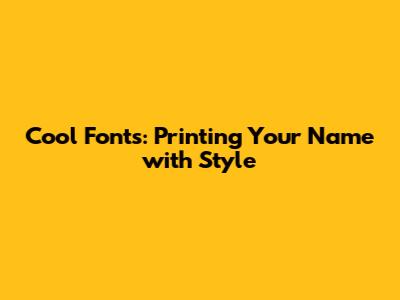
Cool Fonts: Printing Your Name With Style
Hey guys! Ever wanted to see your name looking super cool and unique? Maybe you're working on a project, designing a birthday card, or just feeling creative. Whatever the reason, learning how to print your name in different fonts is a fun skill to have. It's a fantastic way to add a personal touch to anything you create, and it's surprisingly easy to get started. From fancy cursive scripts to bold, modern block letters, the possibilities are endless! In this article, we'll dive into the world of fonts and show you how to spice up your name in a bunch of awesome ways. Get ready to explore a whole spectrum of styles, from the elegant to the edgy. We'll cover everything from using online font generators to the basics of font selection, giving you the tools to express yourself creatively. Let's get started and turn your name into a work of art!
Choosing the Right Font: Your Style Guide
Alright, before we jump into the technical stuff, let's talk about the fun part: choosing the right font. Think of fonts like clothing for your words. Each one has a different personality and can change the whole vibe of your name. First, consider the message you want to convey. Are you aiming for elegance, playfulness, or professionalism? A sleek sans-serif font like Helvetica might be perfect for a modern, clean look, while a flowing script font like Scriptina would be ideal for something more romantic or artistic. Then, check out the various font families. There are four main categories: serif, sans-serif, script, and display fonts. Serif fonts have little strokes, called serifs, at the ends of the letters (think Times New Roman or Georgia), giving them a classic and traditional feel. Sans-serif fonts lack those serifs, resulting in a cleaner, more contemporary look (like Arial or Open Sans). Script fonts mimic handwriting and can range from formal to casual. Finally, display fonts are designed for headlines and creative purposes, often being more decorative and unique. Experiment with various fonts, type your name in each one, and see which one feels right. Don't be afraid to mix and match styles to make it truly your own. Always consider readability, especially if you're using your name in a design that needs to be easily read. Don't go with something that's too elaborate. The goal is to make it look cool but also easy to read. Think about the overall feel you're going for. Is it a fun, bold statement, or something more understated and sophisticated? With so many choices, you're bound to find a font that perfectly suits your style and personality.
Font Pairing and Combination
Once you have a general idea, consider font pairing. Think of it like putting together an outfit. Just like some colors and patterns complement each other, some fonts work well together, creating a harmonious and visually appealing effect. Start by choosing a primary font for your name. This should be the main font, and it sets the tone for your design. Next, select a secondary font to add contrast and interest. Here are some great examples: Pair a bold, modern sans-serif with a more delicate serif. This adds visual interest without clashing. Use a script font for your name and a clean sans-serif for any additional text. This can create a beautiful contrast. Experiment with different weights and sizes of the same font family. This can create a cohesive look while adding emphasis. The key is to find fonts that complement each other. Avoid pairing two fonts that are too similar, as this can create a dull and uninteresting design. Also, don't use too many fonts, as it can make your design look cluttered and unprofessional. Keep it simple and focused, and let your fonts work together to create a striking and memorable visual impact.
The psychology of Fonts
Fonts do a lot more than just display letters; they also communicate emotions and set the tone. Understanding the psychology of fonts can help you choose the perfect one for your name. Serif fonts are generally seen as reliable and traditional, which is why they are often used in newspapers and books. This is an excellent choice if you're aiming for a classic or authoritative look. Sans-serif fonts are associated with modernity and simplicity. They are clean and easy to read, making them a great choice for a contemporary or minimalist design. Script fonts evoke elegance, creativity, and personalization. They can be perfect for conveying romance, artistry, or a sense of individuality. Display fonts are bold and eye-catching. They are best for making a statement or grabbing attention. Consider your target audience. Who are you trying to reach? A playful font might be perfect for a kid-friendly design, while a more professional font would be better for a business card. Think about the message you want to communicate. Does it want to be fun, serious, or elegant? Different fonts will help you express a feeling with your name.
Tools and Techniques: Make it Happen
Okay, guys, now for the fun part: how to actually print your name in different fonts! There are several easy and creative ways to do this, whether you're using a computer, a mobile device, or even just a pen and paper. We'll explore various techniques to bring your vision to life. Let's start with some of the easiest methods: online font generators. These are quick, free, and incredibly user-friendly. Just type your name, choose a font, and download or copy your creation. They're perfect for a quick design or if you're just experimenting. Next, consider using design software. Programs like Canva, Adobe Photoshop, or GIMP offer more advanced font customization options, allowing you to tweak the size, color, and spacing. These tools can elevate your designs. For a more hands-on approach, you can also explore handwriting. Practice different lettering styles and create your unique font. This adds a personal touch and makes it truly original. Lastly, if you are planning to make something more traditional, use traditional tools. Combine these tools with your creativity to make your name look more beautiful. You can also print your name and use it in several projects, such as: creating cool stickers, making custom t-shirts, designing social media graphics, and personalizing gifts, among many other things.
Online Font Generators
Online font generators are a lifesaver when you want to create beautiful font-based art in a flash. There are tons of fantastic, free tools available that are super easy to use. Just type your name into the generator, and you'll immediately see it displayed in a variety of fonts. You can typically customize things like the size, color, and background. Here are some of the best online font generators: Font Generator: This tool provides a simple and easy way to generate text in a variety of fonts. Cool Fancy Text Generator: This website offers a huge selection of fancy and stylish fonts. LingoJam: Offers a text generator with many cool text fonts that include symbols and emojis. These generators are incredibly useful if you need a quick design or if you're experimenting with different fonts. They're perfect for social media posts, greeting cards, and other creative projects.
Design Software: Level Up Your Creativity
If you want more control and customization options, design software is the way to go. Programs like Canva, Adobe Photoshop, and GIMP offer advanced features to create amazing typography. With design software, you can adjust the font size, color, spacing, and even add effects like shadows and outlines. This level of customization allows you to create truly unique and eye-catching designs. Canva is an excellent choice for beginners because of its user-friendly interface and extensive library of templates and fonts. Adobe Photoshop and GIMP are more advanced tools. If you are going to use it, you will get much more control and features, but there is also a steeper learning curve. Design software is perfect for creating professional-looking graphics, such as logos, posters, and social media posts. With a little practice, you can use these tools to create your custom fonts and elevate your designs.
Hands-on Techniques: Get Creative
If you're more of a hands-on person, embrace the art of hand lettering. This is a great way to create your unique fonts and add a personal touch to your designs. Start by practicing different lettering styles. Experiment with various letterforms and techniques. Consider using a brush pen, marker, or pencil to create the effect you want. Once you're comfortable with the basics, try creating your font. Take the time to create your alphabet. Then, practice writing your name in your font. You can also add embellishments and details to make it your own. Hand lettering is a wonderful way to express your creativity. It is great for creating unique cards, designing personalized gifts, and making impressive art projects.
Making It Your Own: Adding Personal Touches
Alright, you've got your name in a cool font, but how do you make it truly yours? Here's how to add those personal touches that make your name stand out. Firstly, change up the color and texture. Experiment with different colors to create various effects, from bold and vibrant to soft and sophisticated. Incorporate textures like gradients, patterns, or even a distressed look to add depth and visual interest. Next, consider adding decorative elements. This can include anything from simple flourishes and borders to more elaborate illustrations and graphics. Think about your style and personality, and choose elements that reflect that. Don't be afraid to experiment with different design elements. The goal is to create something unique and special. Remember, your name is your brand, and it is a reflection of your personality and style. Make it stand out! Play with effects and adjustments like shadows, outlines, or 3D effects. This can make your name pop off the page and grab attention. Adding your name to all of your favorite stuff is a great idea to make it your own. Whether it's on t-shirts, mugs, or posters, you'll be expressing yourself!
Font Styles and Themes
When creating a design with your name, think about the theme or style you're going for. This can help you choose the right font and design elements. For example, if you're creating a design for a children's project, you might choose a playful font and bright colors. If you're designing something for a formal event, you might opt for an elegant script font and a sophisticated color palette. Consider the overall mood or message you want to convey and choose a font and style that aligns with that. Some popular design themes include: classic, modern, retro, and minimalist. Think about combining different elements. The key is to be creative and have fun. Your name is a great way to showcase your personality.
Conclusion: Embrace Your Name with Style
Alright, guys, you've reached the end of the journey! You now have the knowledge and tools to print your name in different fonts and express yourself creatively. Remember, the world of fonts is vast and varied, so don't be afraid to experiment and have fun! Whether you're using online generators, design software, or hand-lettering techniques, the possibilities are endless. Use the tips and tricks we've covered to create personalized designs that reflect your style and personality. As a reminder, here's what you've learned. You should start by choosing a font that represents your idea. You have to consider the psychology of fonts, which affects the result. You also need to know the tools and techniques. And finally, create a personalized design. The journey doesn't end here! Continue to explore new fonts, techniques, and design elements to grow and evolve. Your name is a powerful tool for self-expression, so use it to showcase your creativity and let your personality shine! Happy designing! Make sure to share your creations with us! We can't wait to see what you come up with!